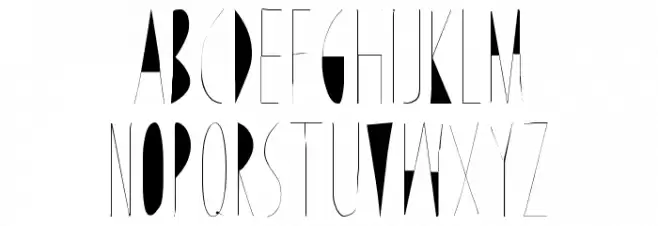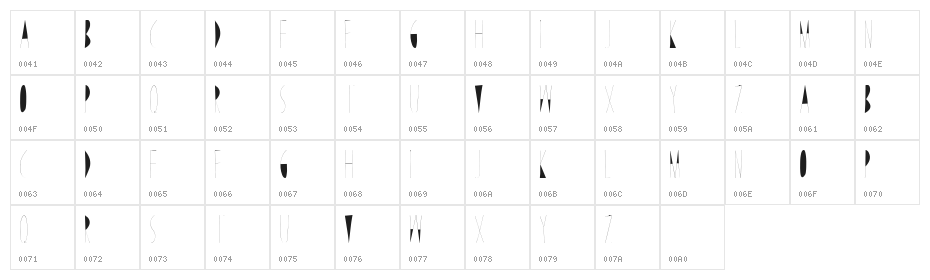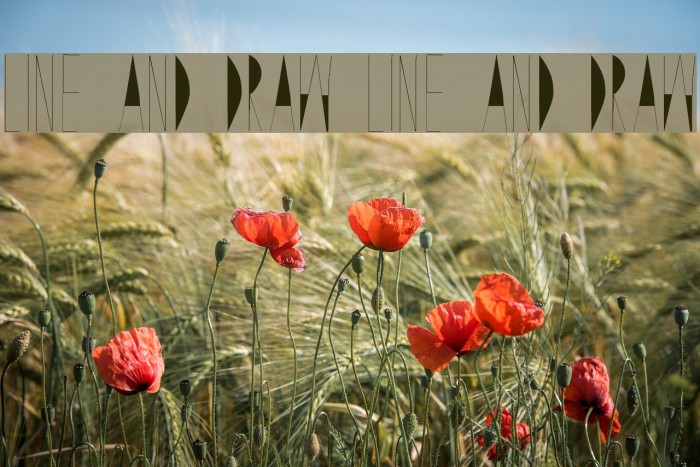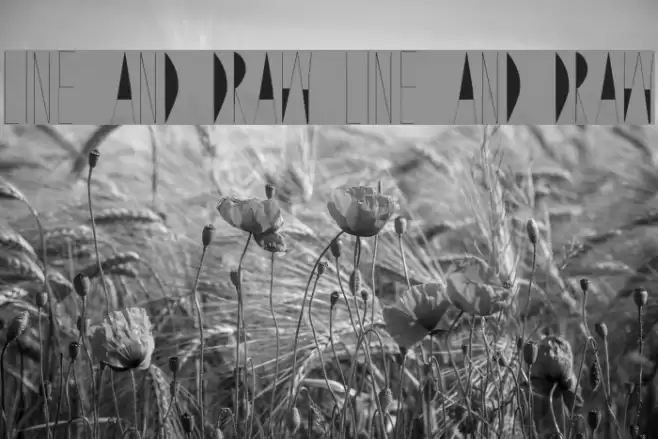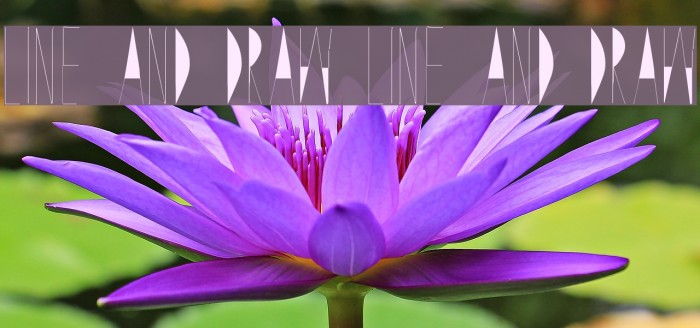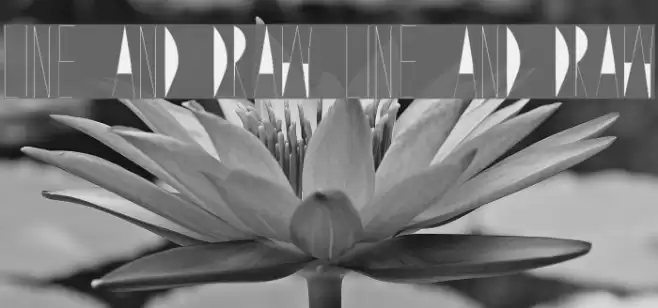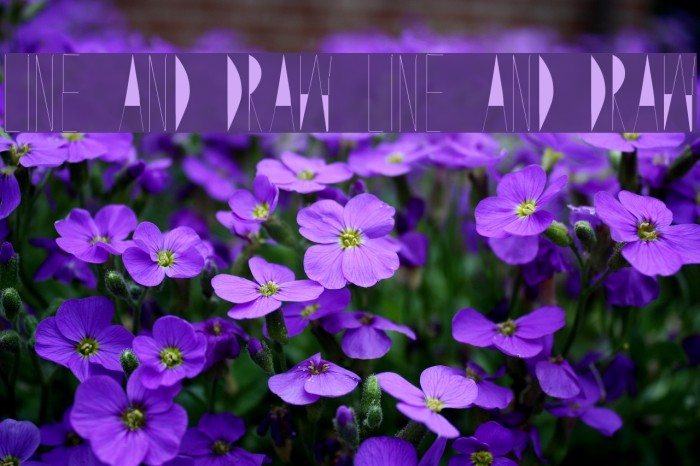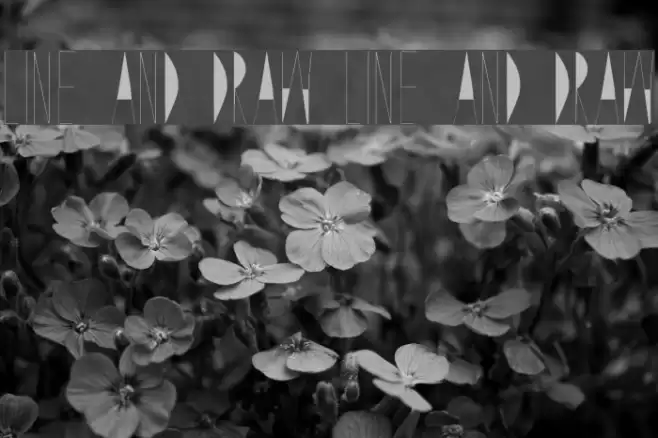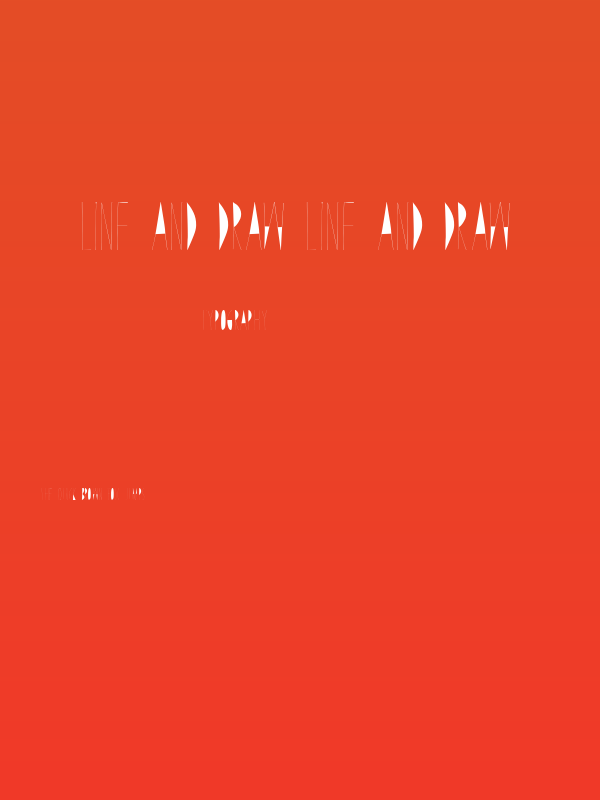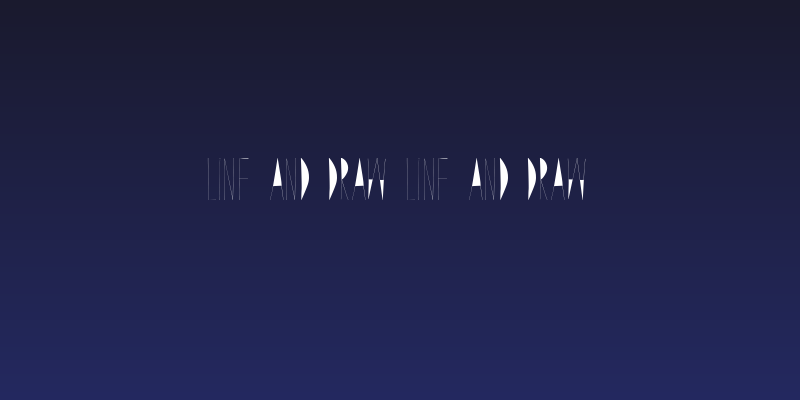
Line and Draw Font
Line and Draw Description
This font features a unique and artistic design with a high contrast between thick and thin strokes, creating a striking visual impact. The letters are elongated and narrow, giving a tall and elegant appearance. The use of negative space within the characters adds a modern and abstract touch, making it stand out in any design. The font's geometric shapes and sharp angles contribute to its contemporary and stylish look, suitable for creative and bold projects.
| Proposed Projects | Ideal for modern branding, artistic posters, fashion magazines, and innovative advertising campaigns. |